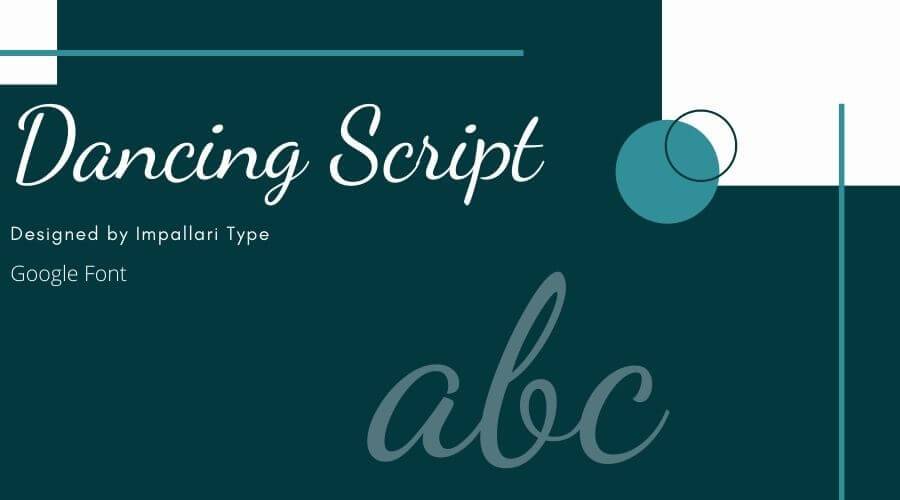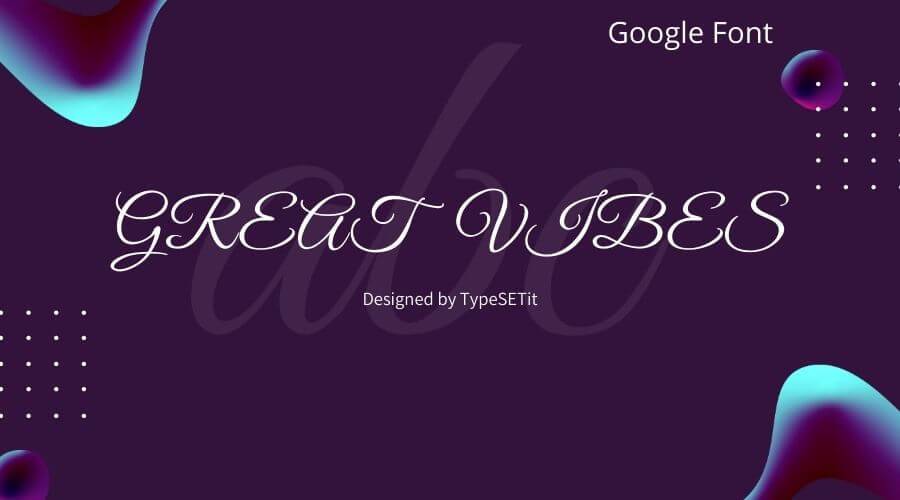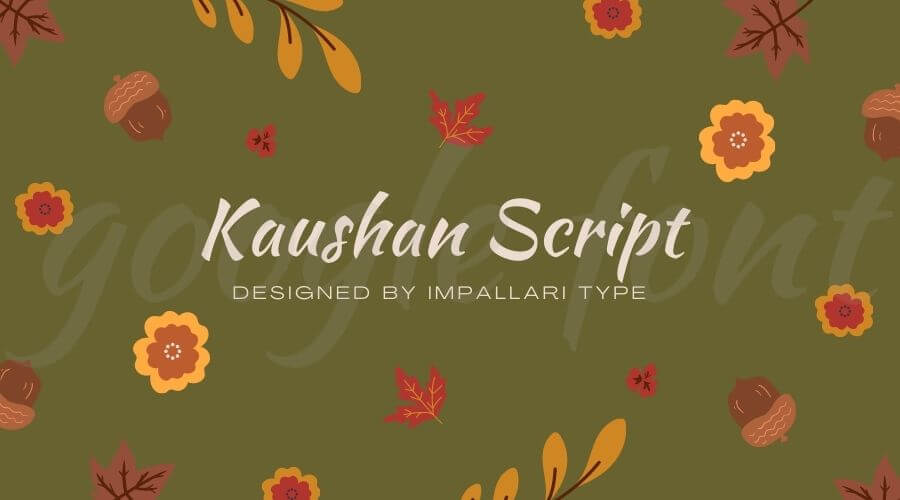
Text styles that fall into the script classification are those that resemble hand lettering with a brush, calligraphy pen or pencil. They can be additionally separated into the exceptionally exquisite or formal style that looks like traditional calligraphy and the more rough and ready casual style.
There are two types of script font one is Formal scripts and the other is Casual scripts. Formal Scripts are based upon the letterforms of seventeenth and eighteenth century writing-masters like George Bickham, George Shelley and George Snell. On the other hand Casual scripts appear in the early twentieth century and with the advent of photocomposition in the early-1950s their number rapidly increased. They were popularly used in advertising in Europe and North America into the 1970s.
At present, the use of script fonts has increased in many parts. In my opinion, a bold script is very suitable for branding a company. You can use this also for invitation cards, headings, letterheads and logos. With larger, bolder script fonts, there are more options for flexible colour uses and designs, including outline text, and colour gradients.
Dancing Script Font
Dancing Script is a lively casual script font designed by Impallari Type and publisher through Google Fonts. With its unique casual script typeface, Dancing Script font is very much attractive and eye-catchy. This font is licensed under the Open Font License. You can use this freely in your products & projects – print or digital, commercial or otherwise.
Grand Hotel Font
Designed by Brian J. Bonislawsky and Jim Lyles for Astigmatic, Grand Hotel is a casual script typeface font that is inspired from the title screen of the 1937 film “Cafe Metropole” starring Tyrone Power. This is a Google font and licensed under the Open Font License. So, it is totally a free font for personal and commercial use.
Great Vibes Font
Great Vibes is a script typeface font designed by Rob Leuschke for TypeSETit. With its clean and classy look, Great Vibes is one of the famous typeface. Great Vibes is also a Google Font that is licensed under the Open Font License. You can use this font freely in your products & projects – print or digital, commercial or otherwise.
Lobster Font
Pablo Impallari designed Lobster and published through Google Fonts and Impallari. With 345 glyphs and 715 characters, this font is very much perfect for all working areas. Lobster is ideal for logos and branding. Lobster has vast language support and licensed under the Open Font License.
Kaushan Font
Kaushan Script Font
Designed by Impallari Type, Kaushan Script is a casual script typeface font that is published through Google Fonts. Kaushan Script is licensed under the Open Font License. You can use this font freely in your products & projects – print or digital, commercial or otherwise. However, you can’t sell the fonts on their own.